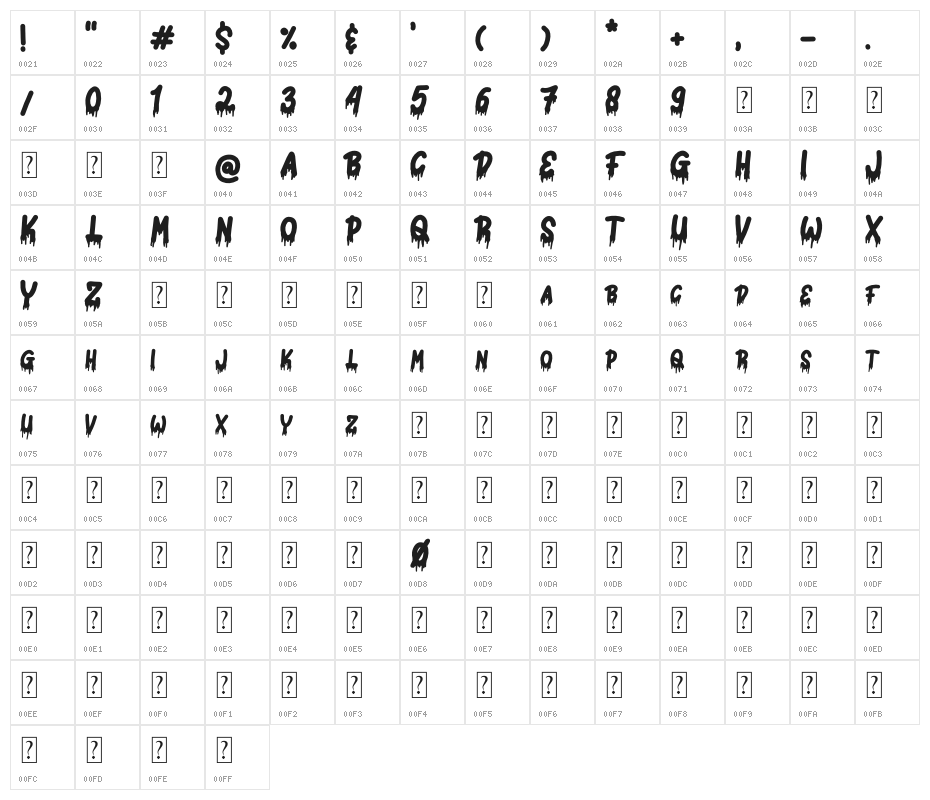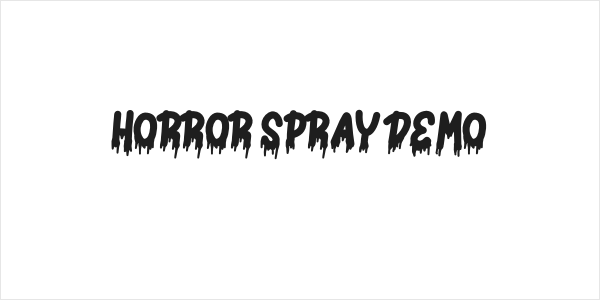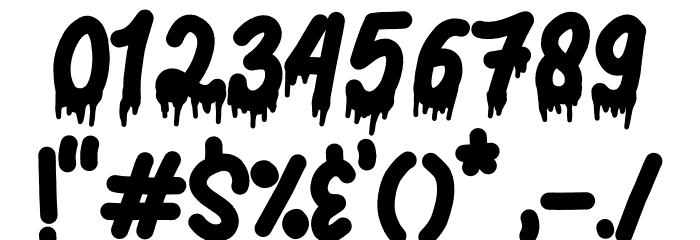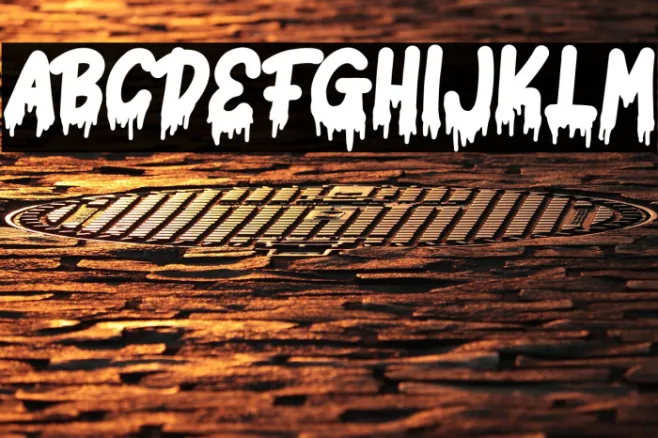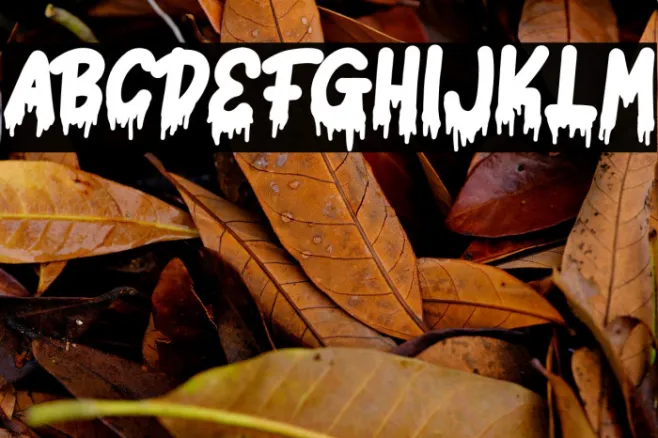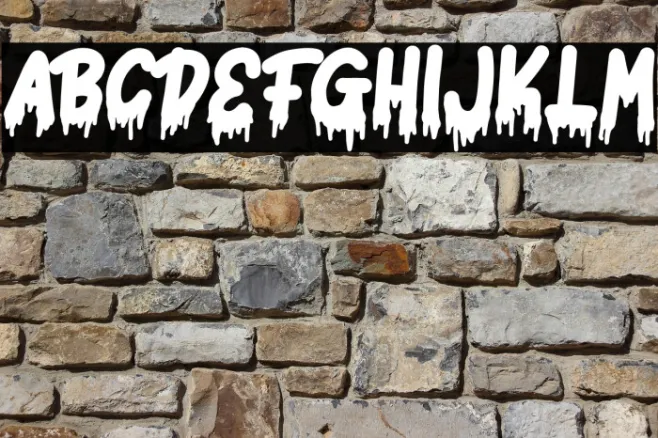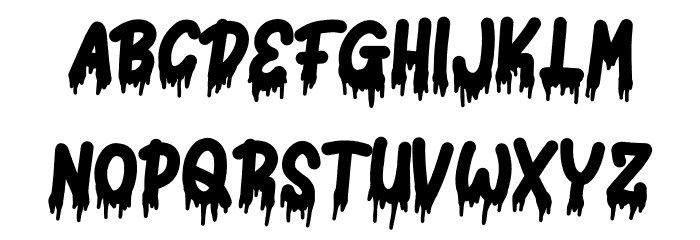
HORROR SPRAY DEMO Font
HORROR SPRAY DEMO Description
This font features a bold and dramatic style with letters that appear to be dripping, reminiscent of horror or graffiti art. The uppercase and lowercase letters maintain a consistent dripping effect, giving the impression of wet paint or a melting substance. The numbers and special characters follow the same theme, ensuring a cohesive look across all characters. The font's unique appearance makes it ideal for creating a spooky or edgy atmosphere, perfect for Halloween-themed projects or urban art designs. Its boldness ensures that it stands out, making it suitable for headlines or titles that need to capture attention.
| Proposed Projects | Halloween invitations, horror movie posters, graffiti art, edgy branding. |